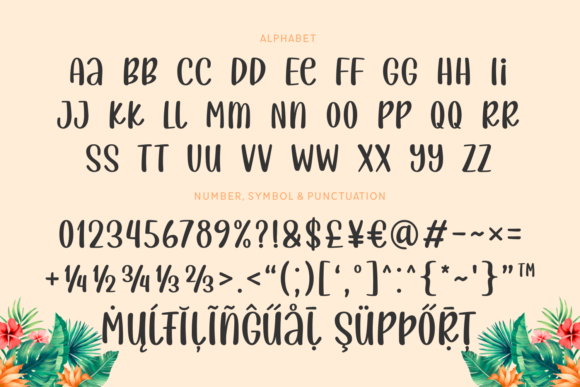
Santay Beach is a cute and playful display font with a summer vibe. Santay Beach sans serif font with tall and thin characters is perfect for summer sales banners, quotes, logos, fashion, food&drinks menus, labels, packaging, posters, and covers.